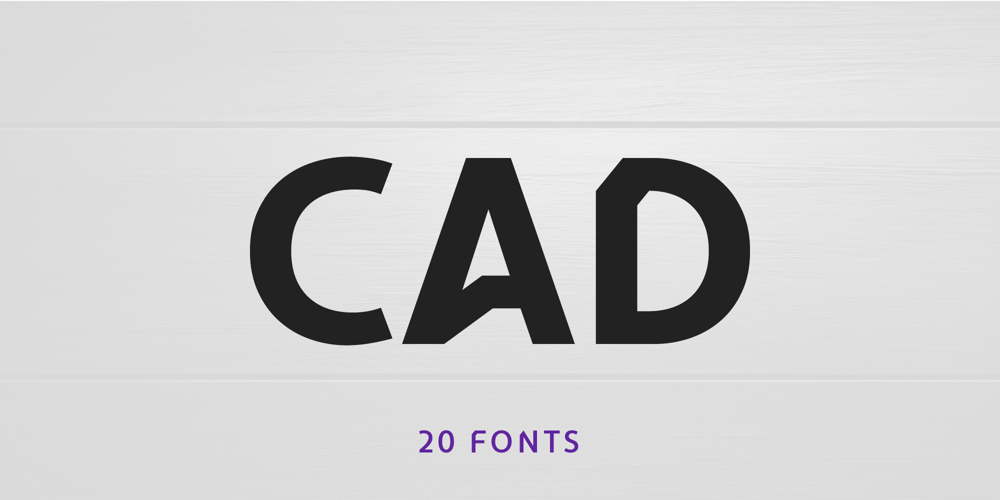
Cad Font Family was designed by Nikolay Savchuk and published by NicolassFonts. Cad contains 20 styles and family package options. CAD is brilliantly suited for graphic design and display use and perfect for logotypes, t-shirts, packaging, brand identity, books, magazines, newspapers, posters, billboards, and advertising.